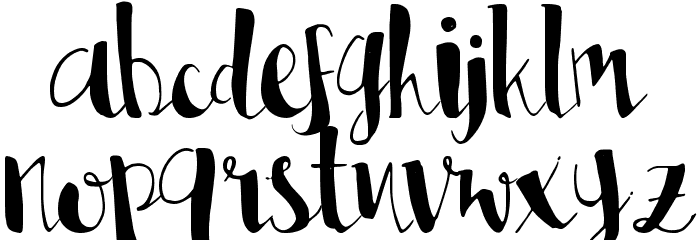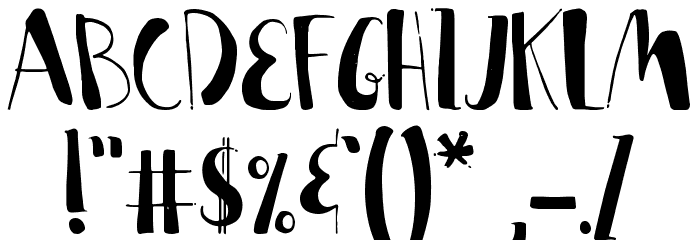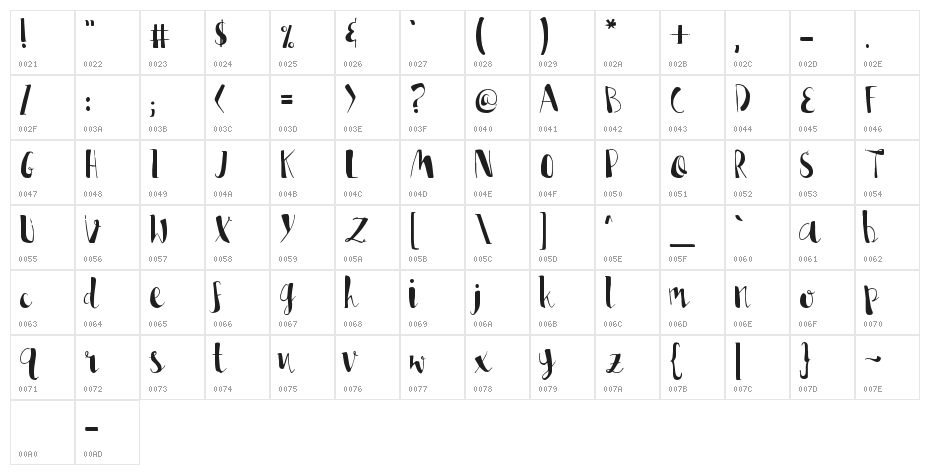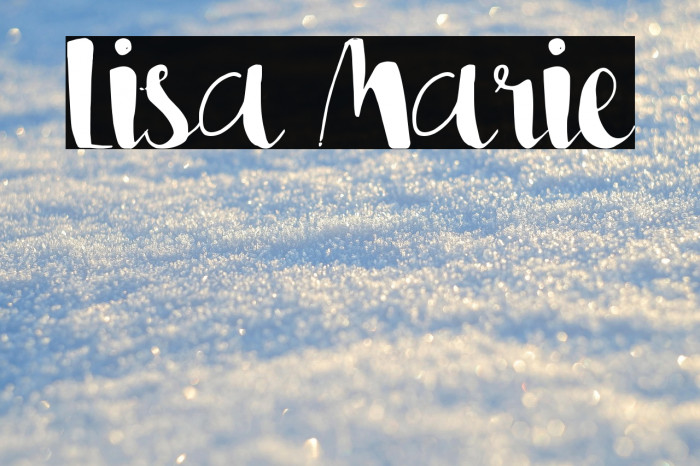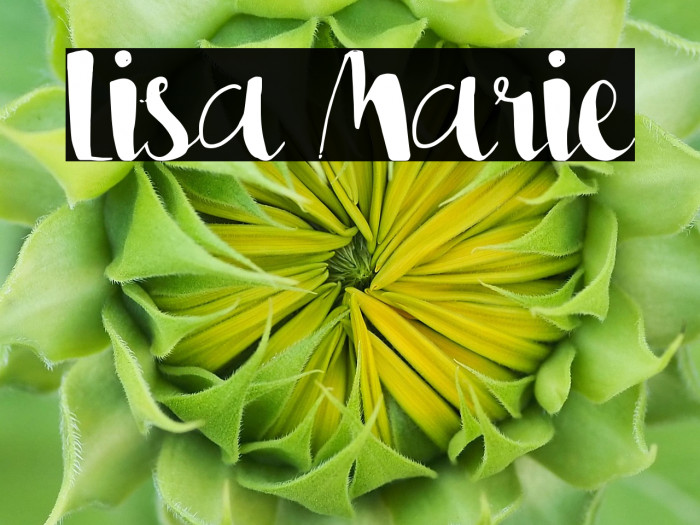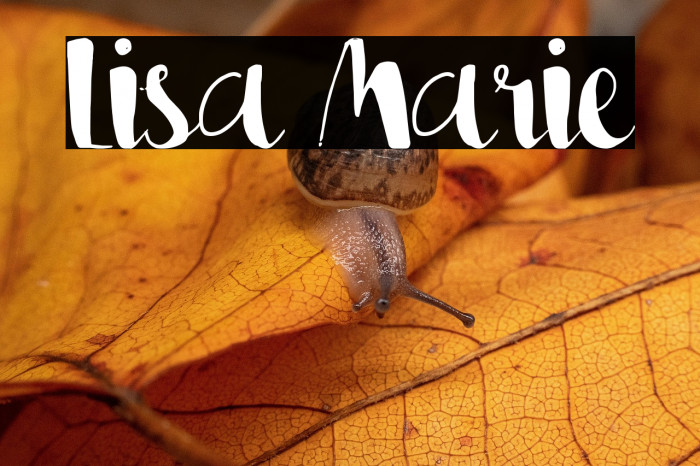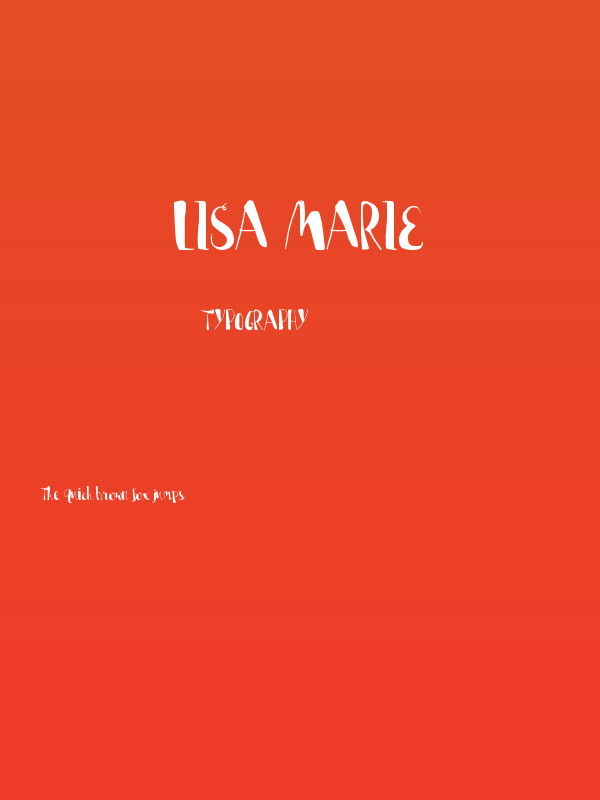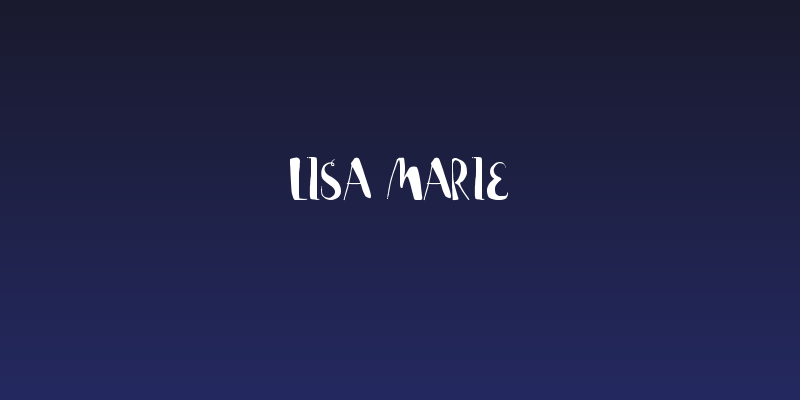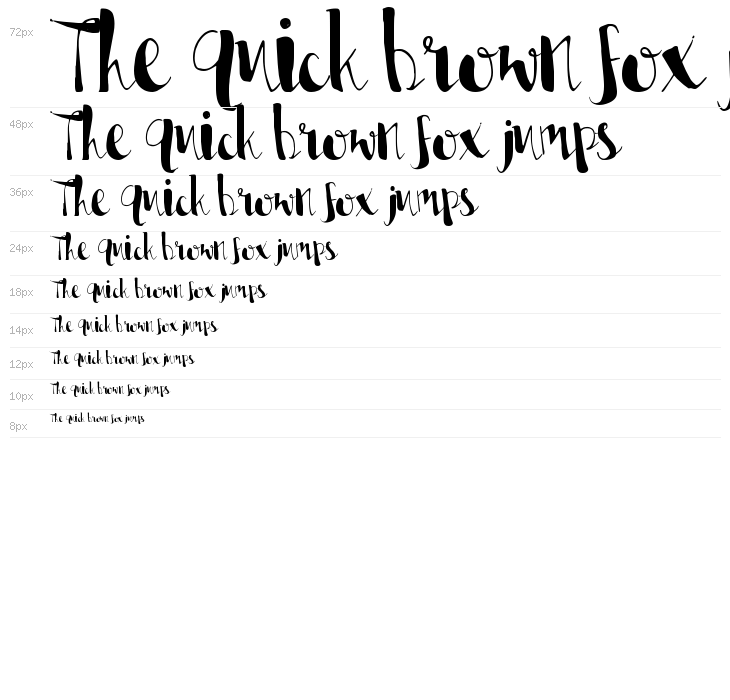
Lisa Marie Font
This font features a whimsical and playful design with a handwritten style. The letters are characterized by their uneven strokes and varying thickness, giving it a dynamic and lively appearance. The uppercase letters have a bold presence, while the lowercase letters maintain a more casual and relaxed feel. The font includes a full set of numerals and special characters, each maintaining the same playful aesthetic. The unique style of this font makes it stand out, with its quirky loops and swirls adding to its charm. It's perfect for projects that require a touch of creativity and fun.
A whimsical, handwritten font with playful, uneven strokes.
- Font: Lisa Marie
- Proposed Projects: Ideal for greeting cards, children's books, playful branding, and creative posters.